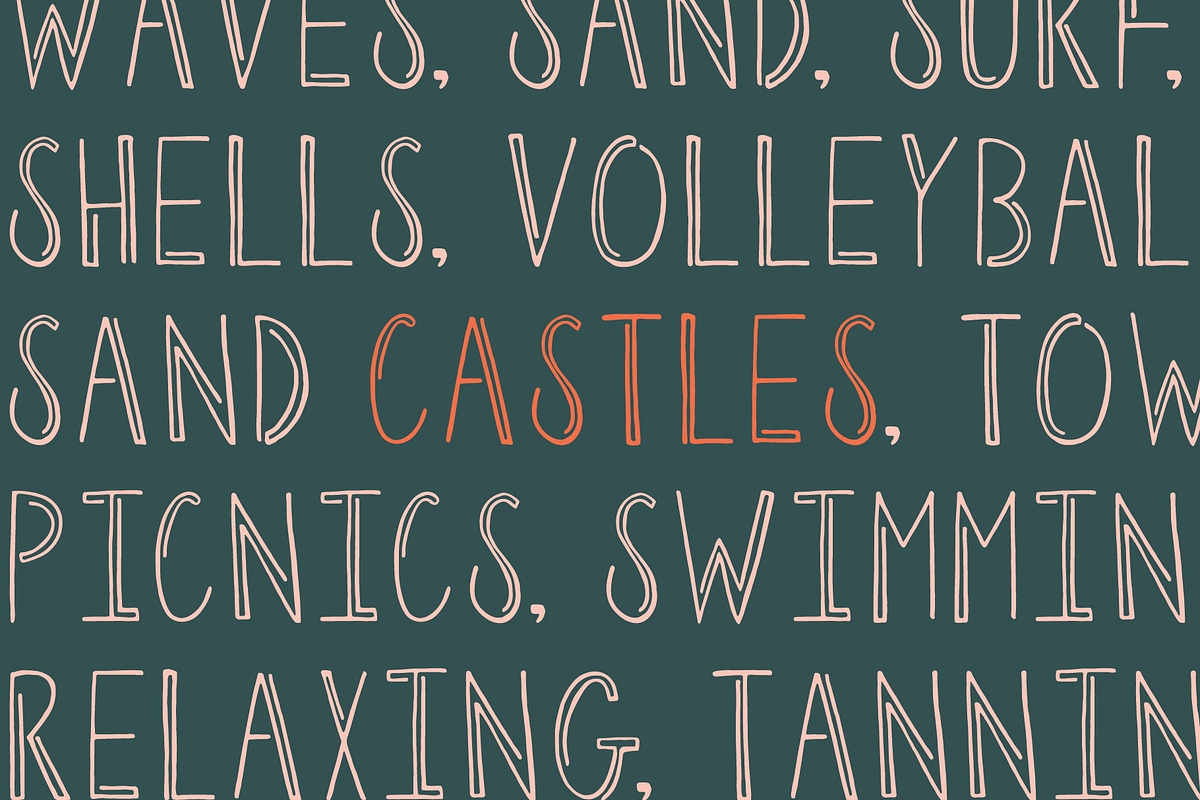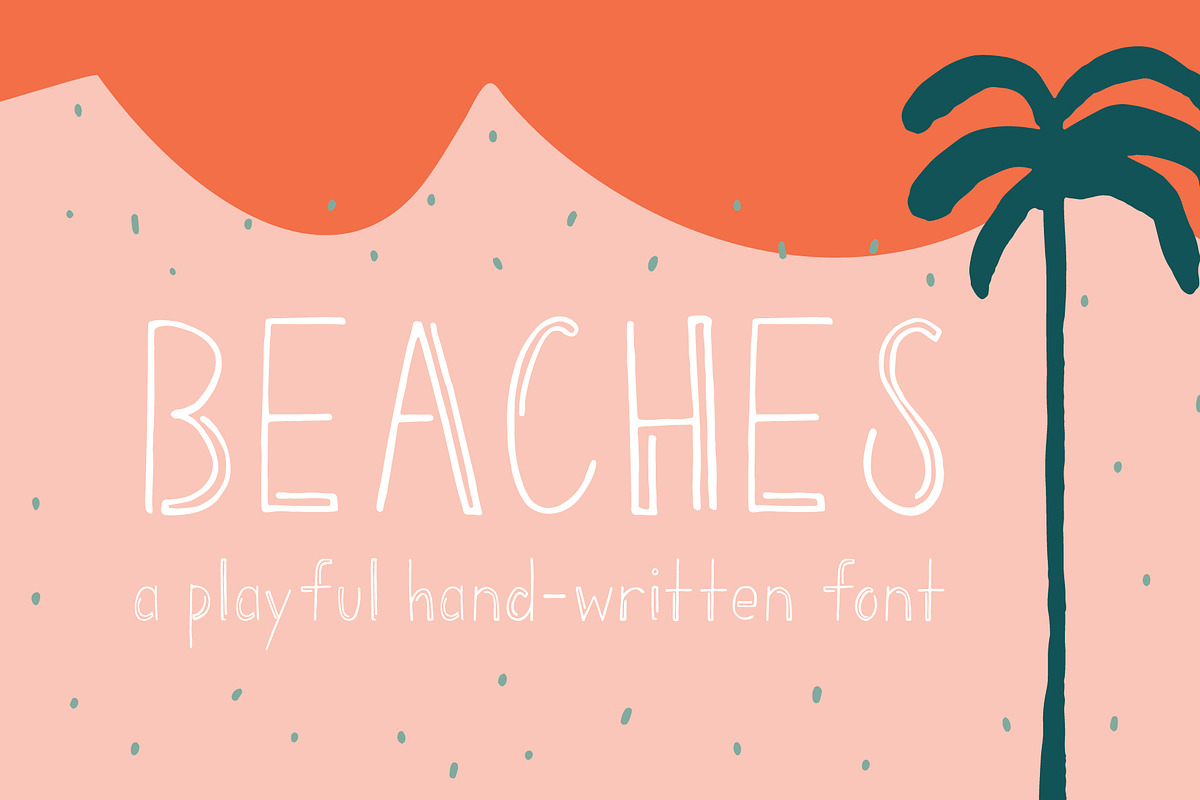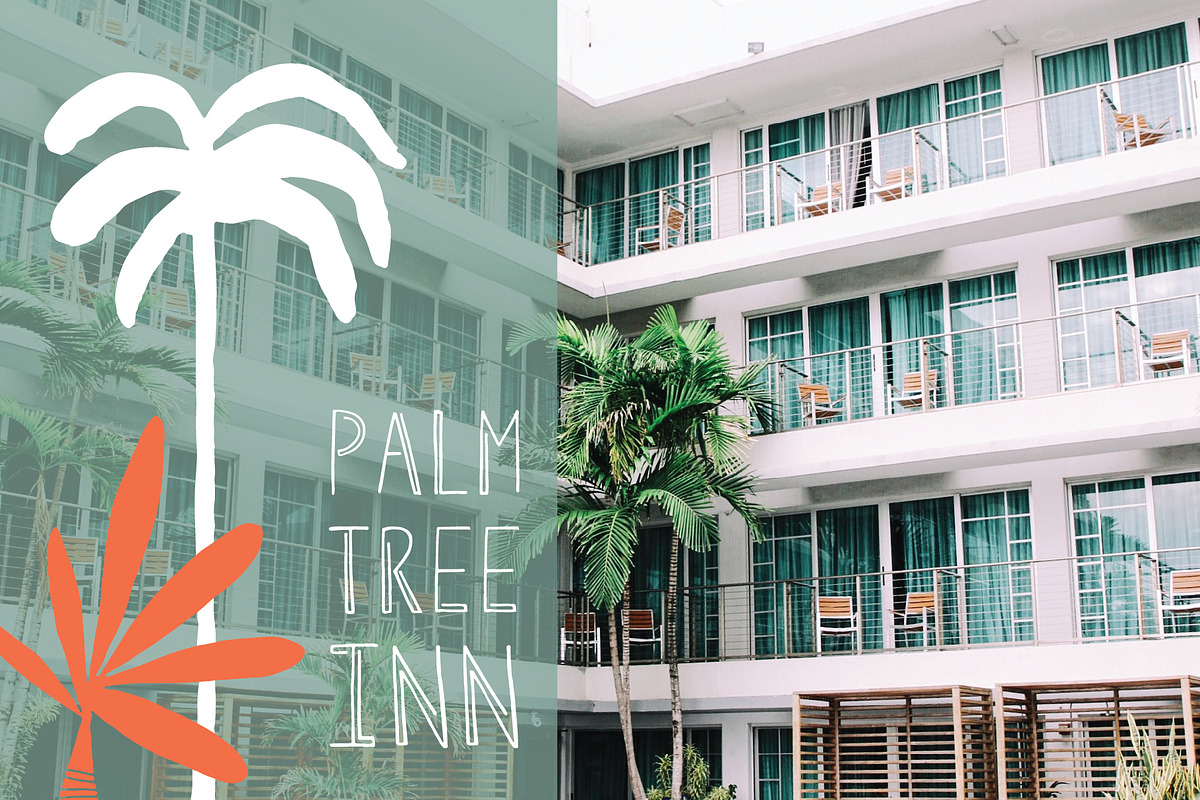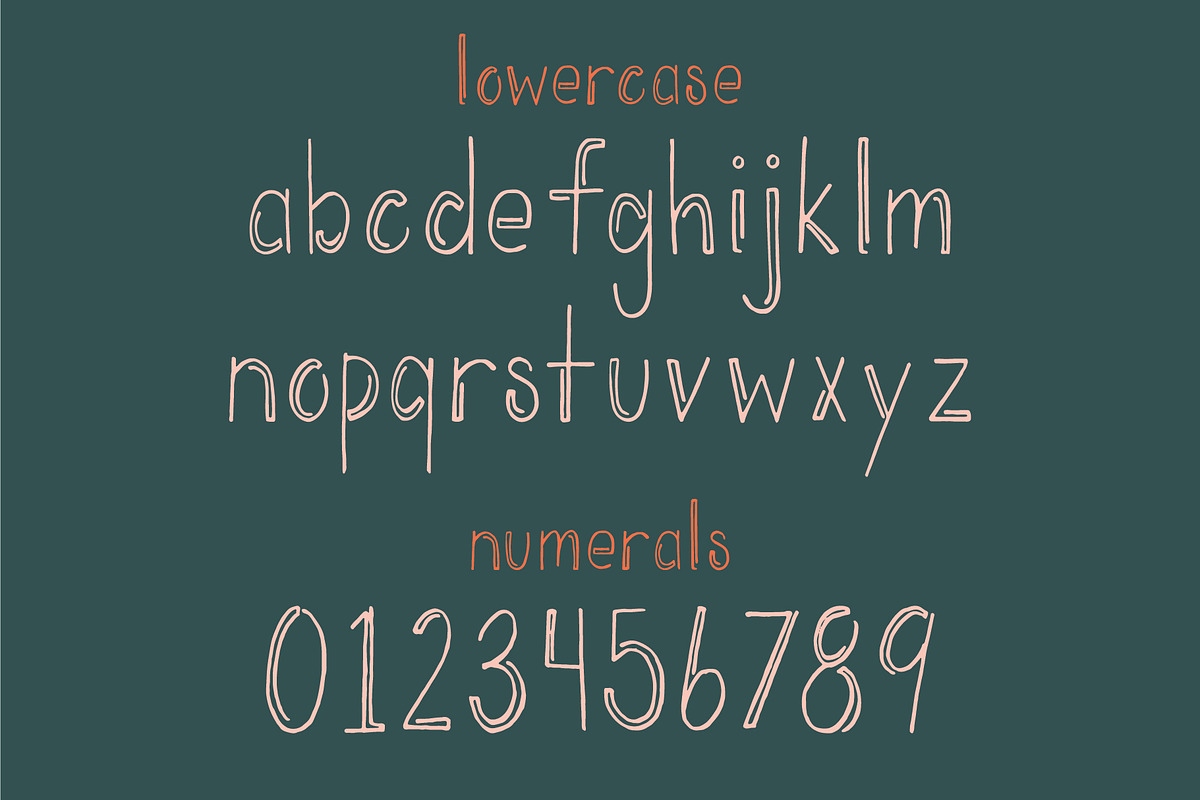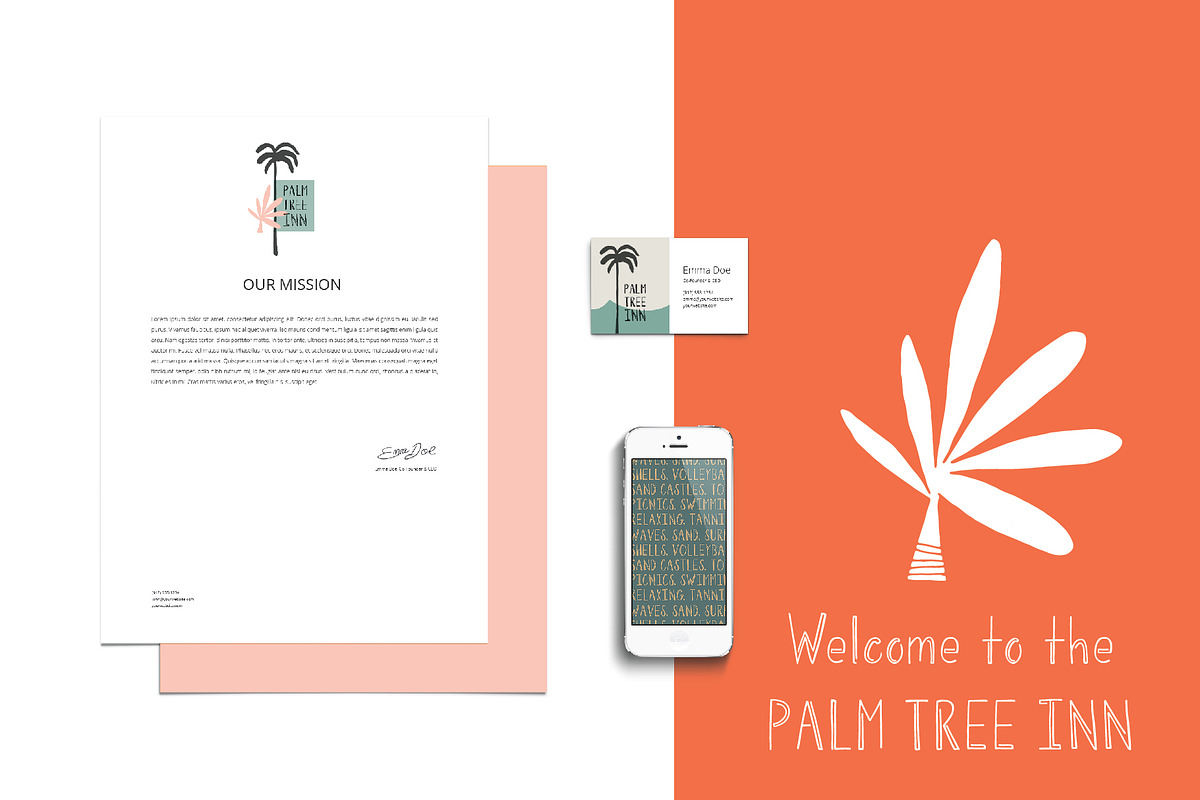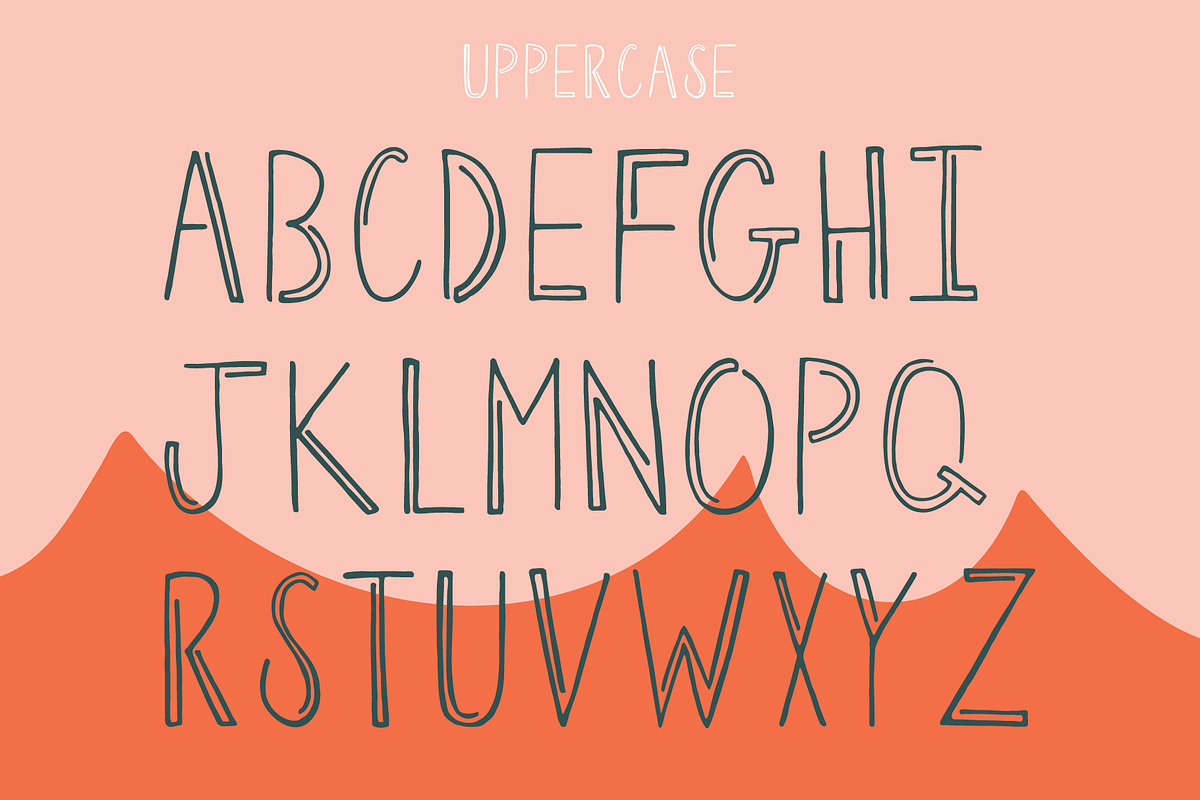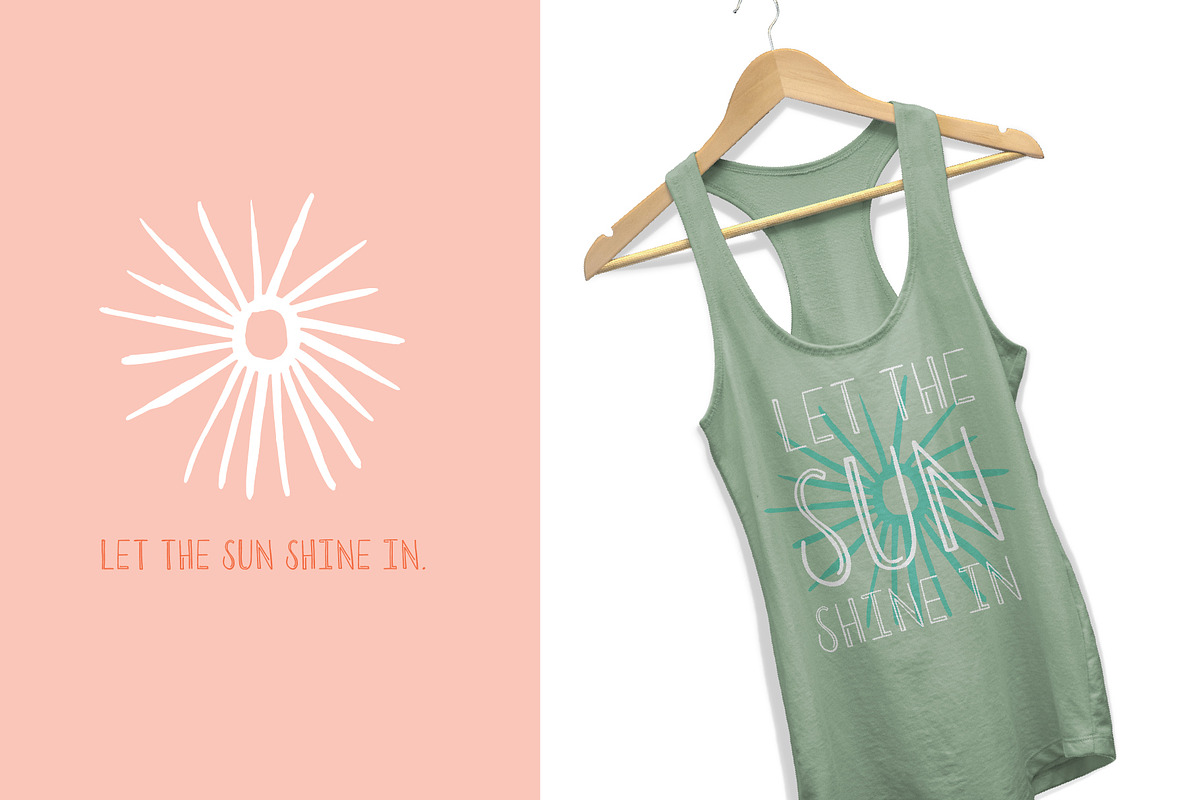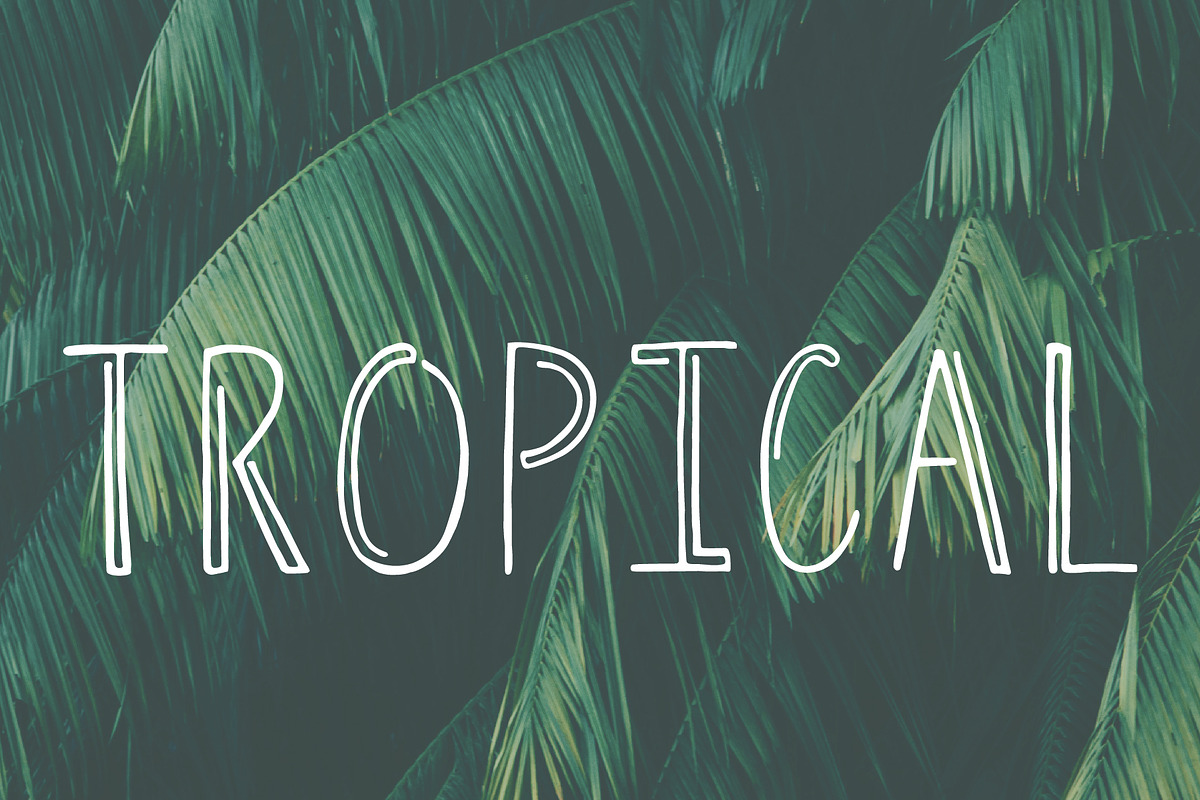
Beaches | A Playful Font
This is our debut font, and we are super excited. Beaches is a playful hand written font inspired by Palm Springs. Use font to create everything from LOGOs to shirt designs.